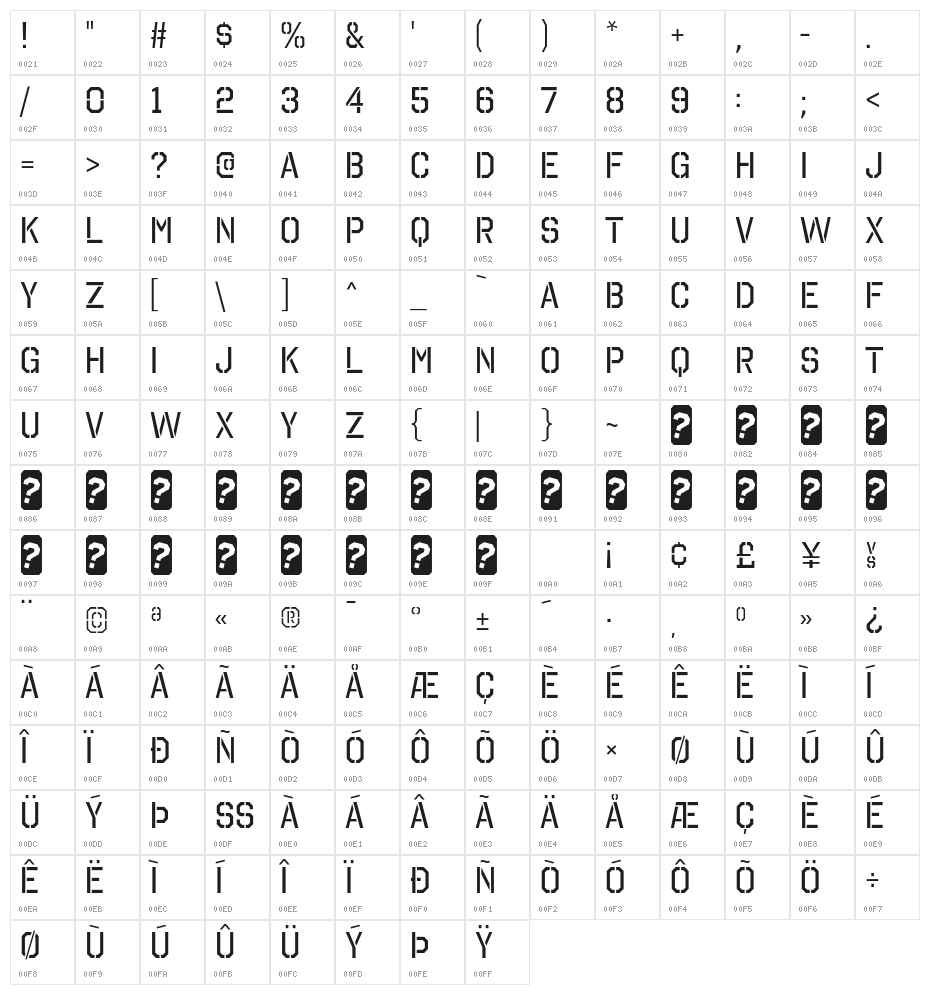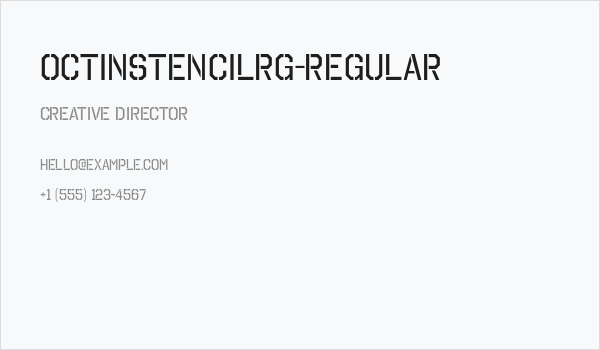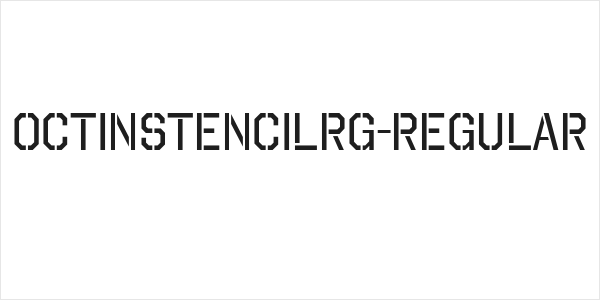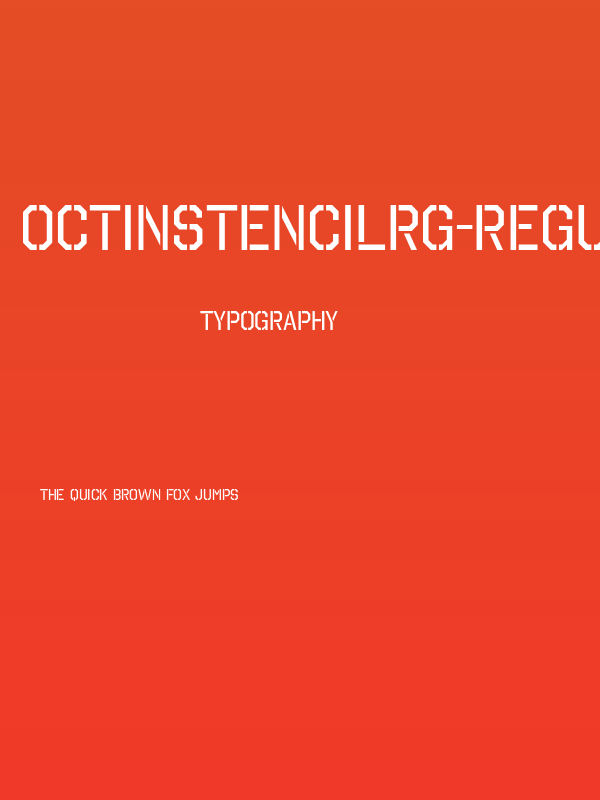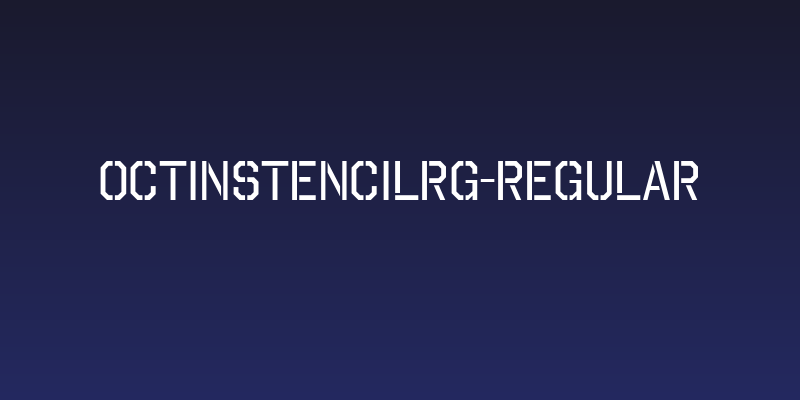
OctinStencilRg-Regular Font
OctinStencilRg-Regular Description
This font features a bold, geometric design with a distinct stencil style. Each character is constructed with clean, angular lines and breaks that give it a rugged, industrial feel. The uppercase and lowercase letters maintain a consistent height, enhancing its uniform appearance. The numerals and special characters follow the same design principles, ensuring a cohesive look across all glyphs. This font is ideal for projects that require a strong, impactful presence, such as military-themed designs or industrial branding.
| Overall Style | Industrial, Modern |
| Use Case | Headlines, Logos, Signage |
| Proposed Projects | Ideal for military-themed designs, industrial branding, signage, and posters. |